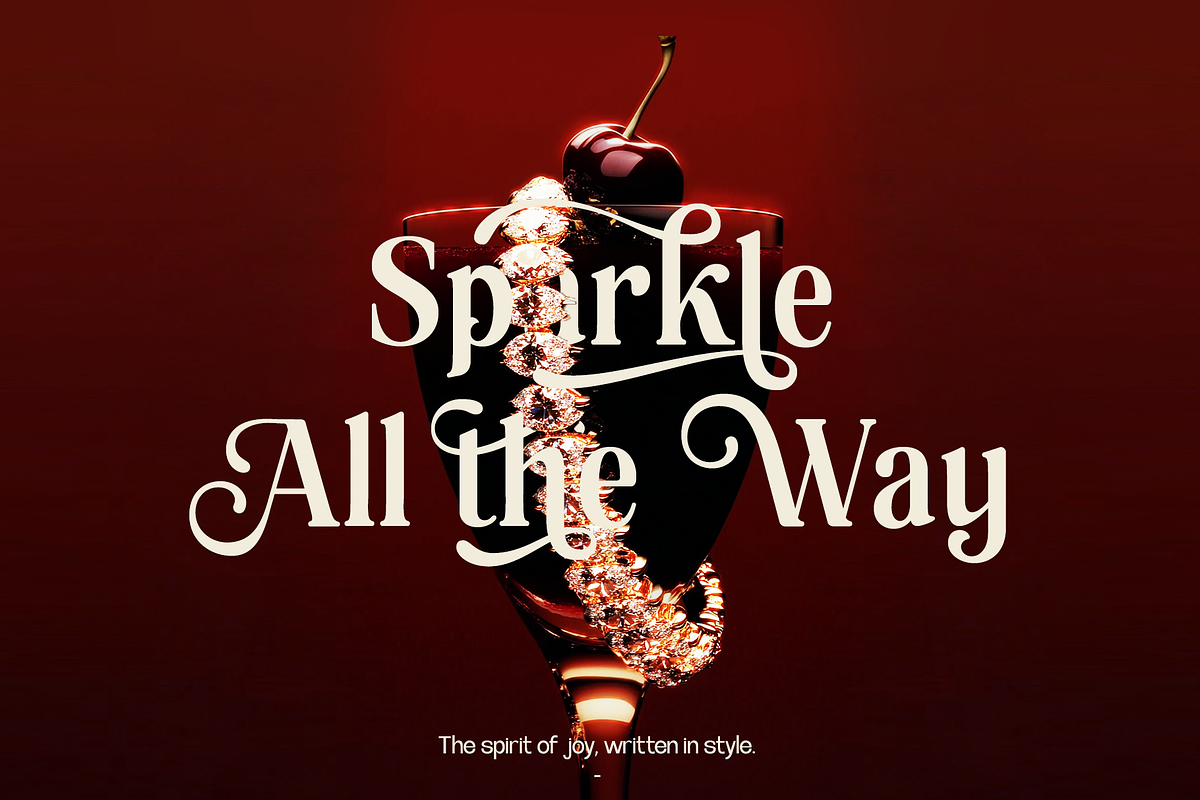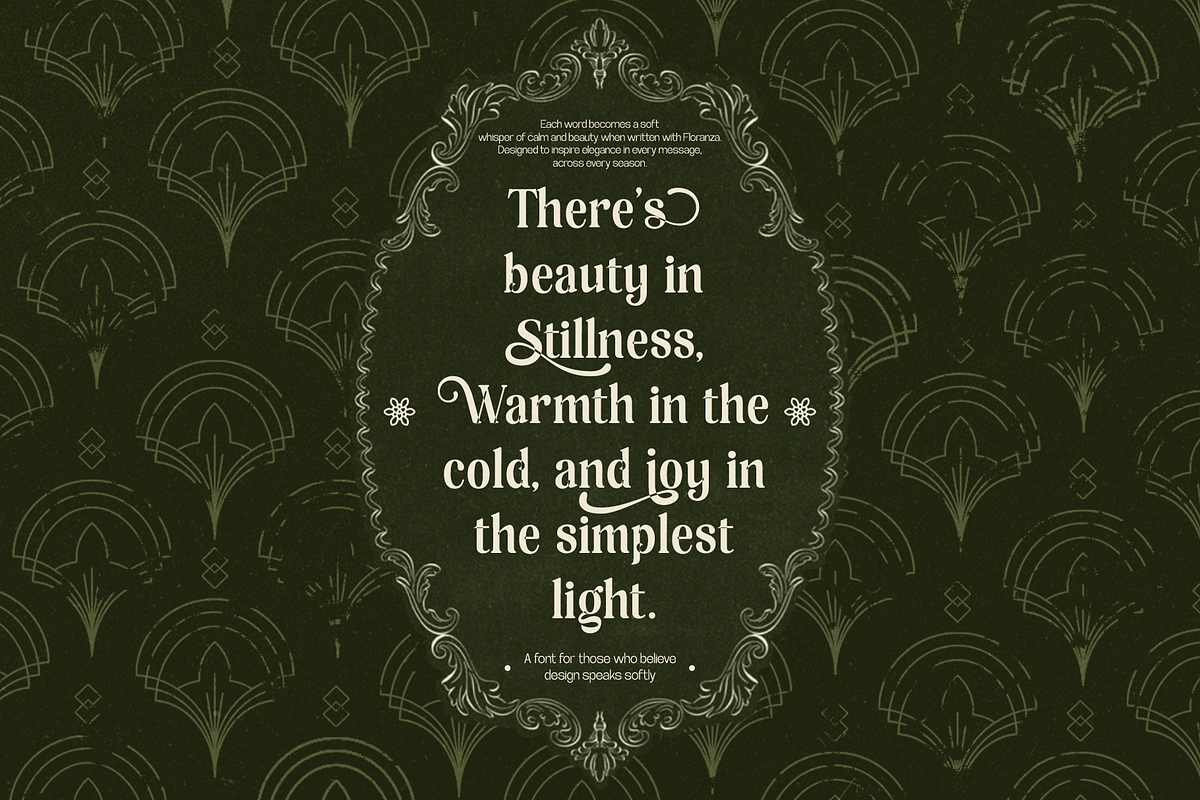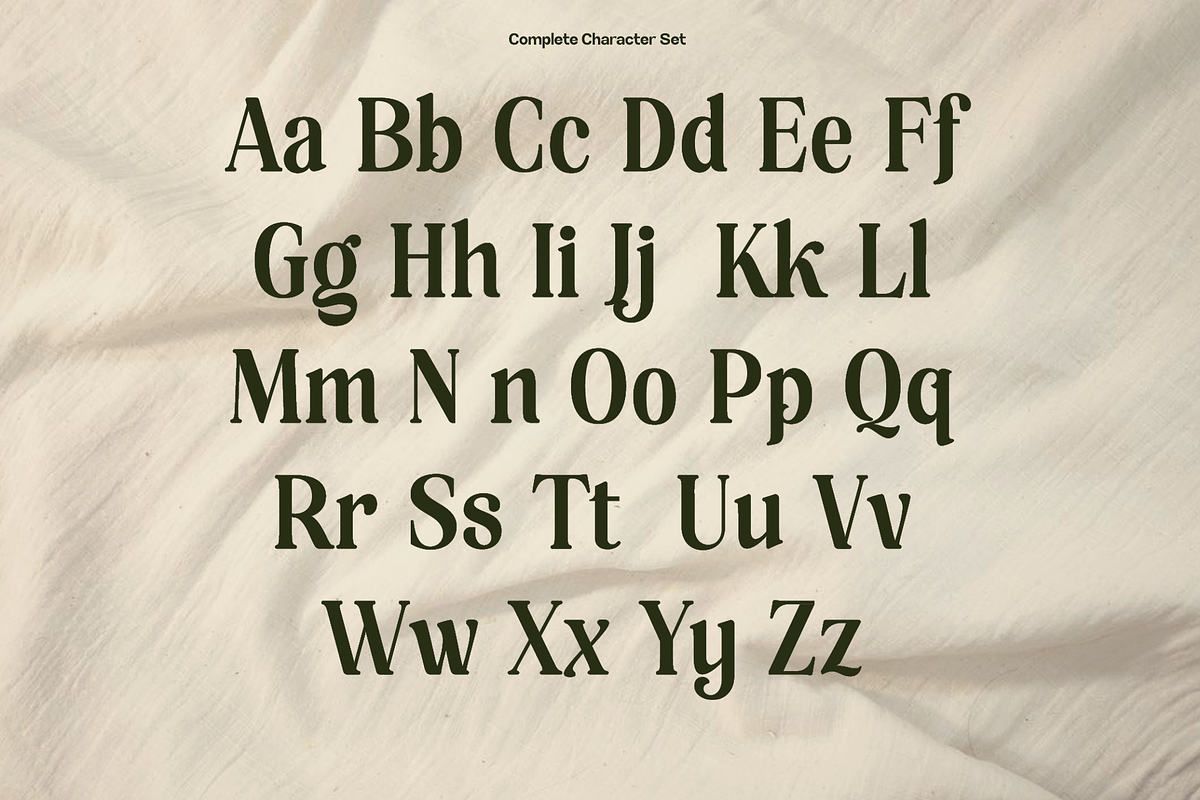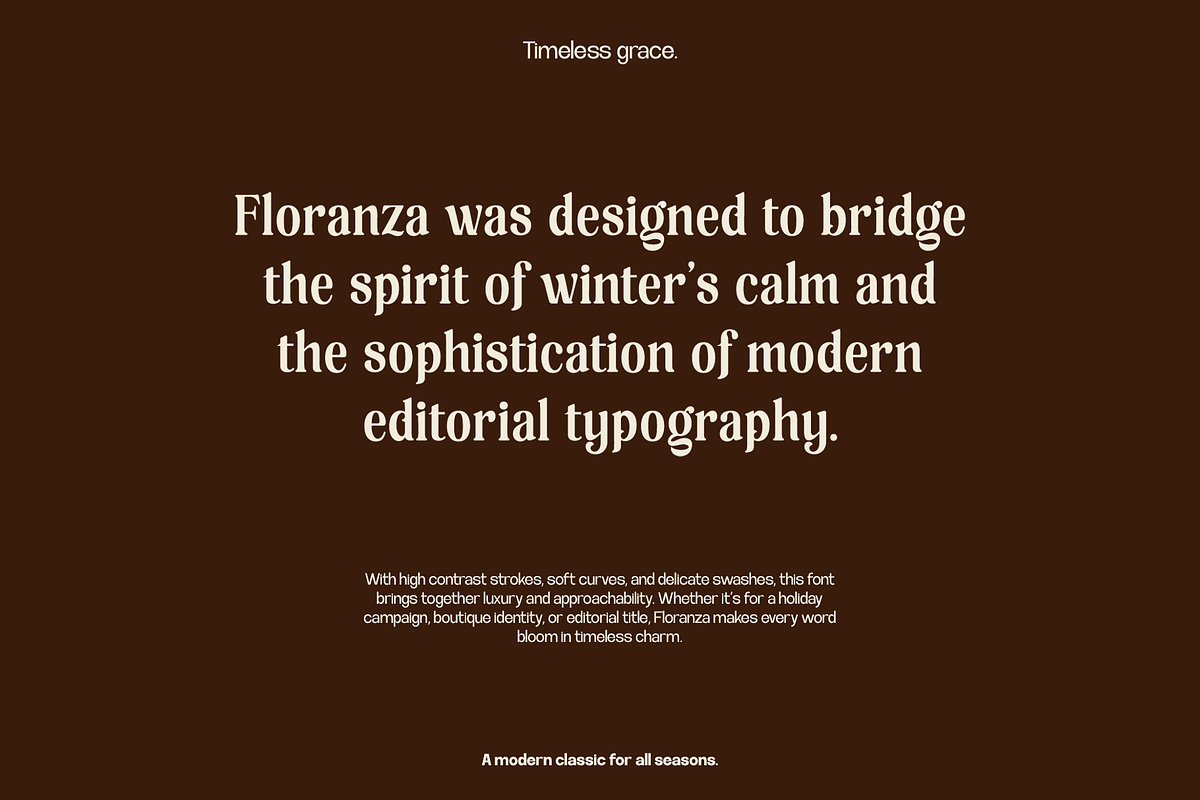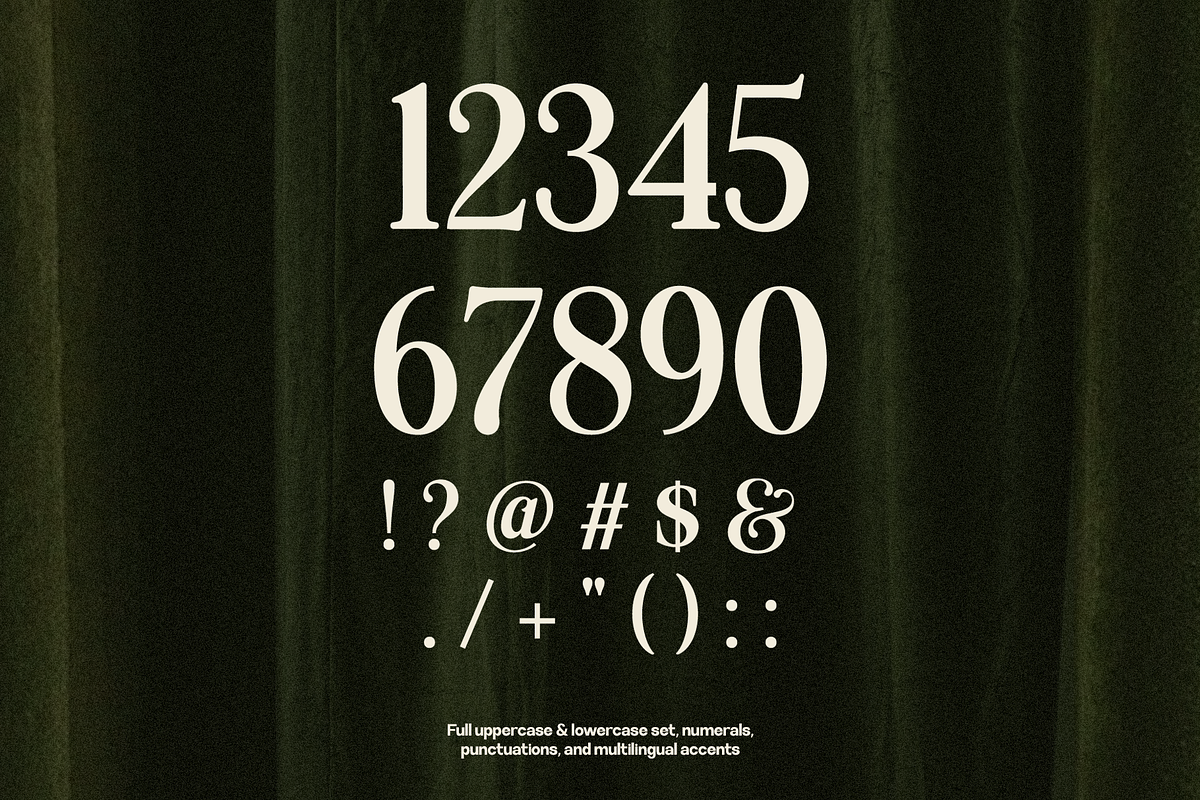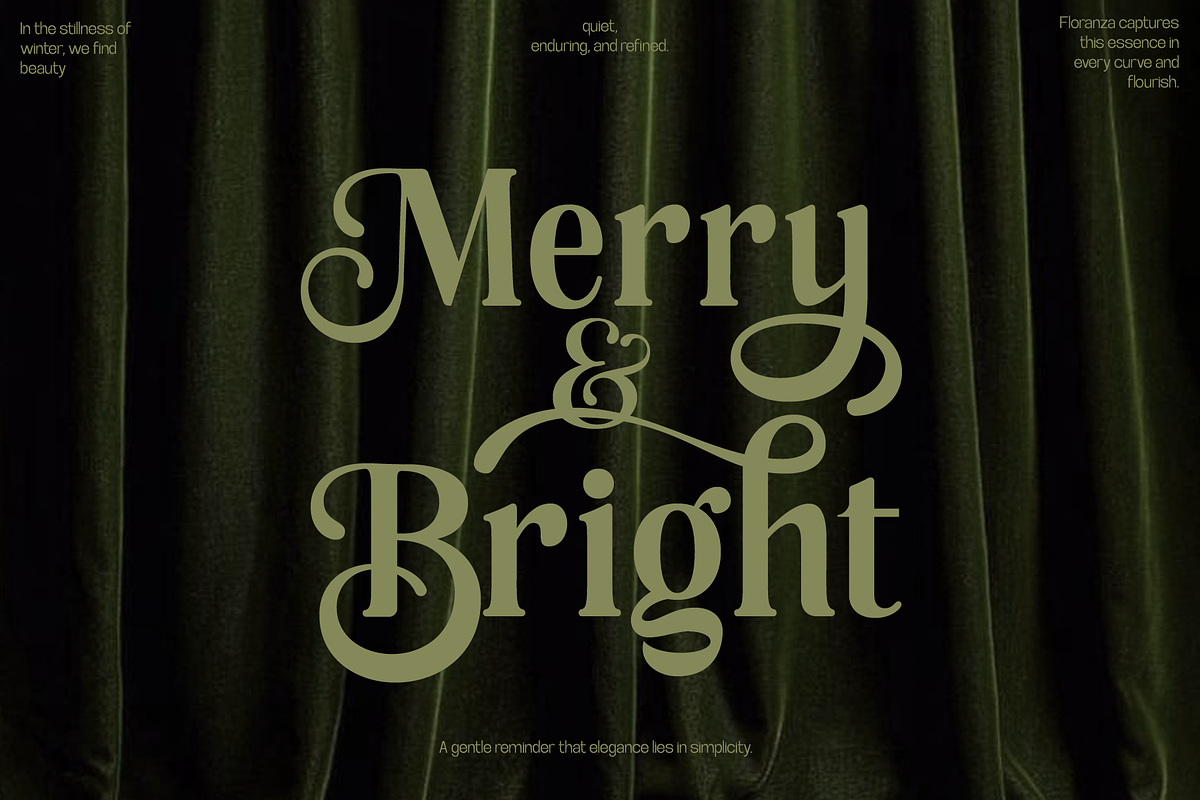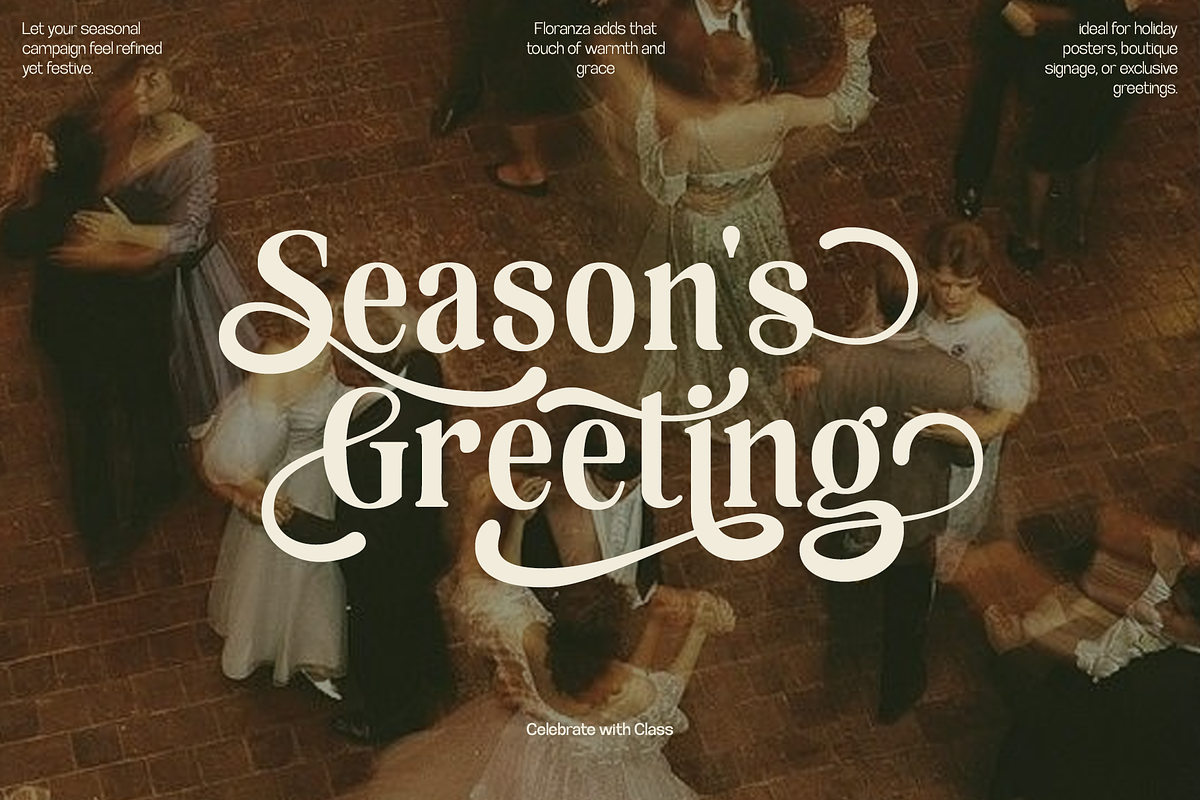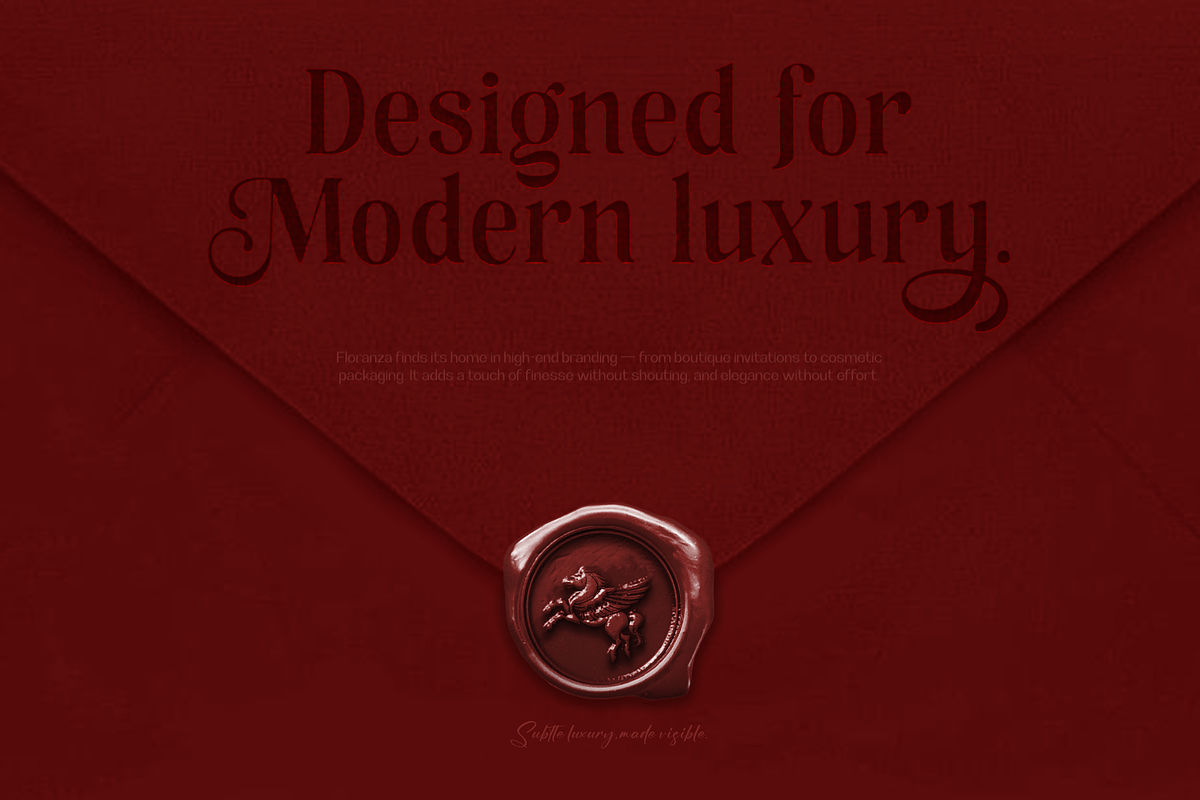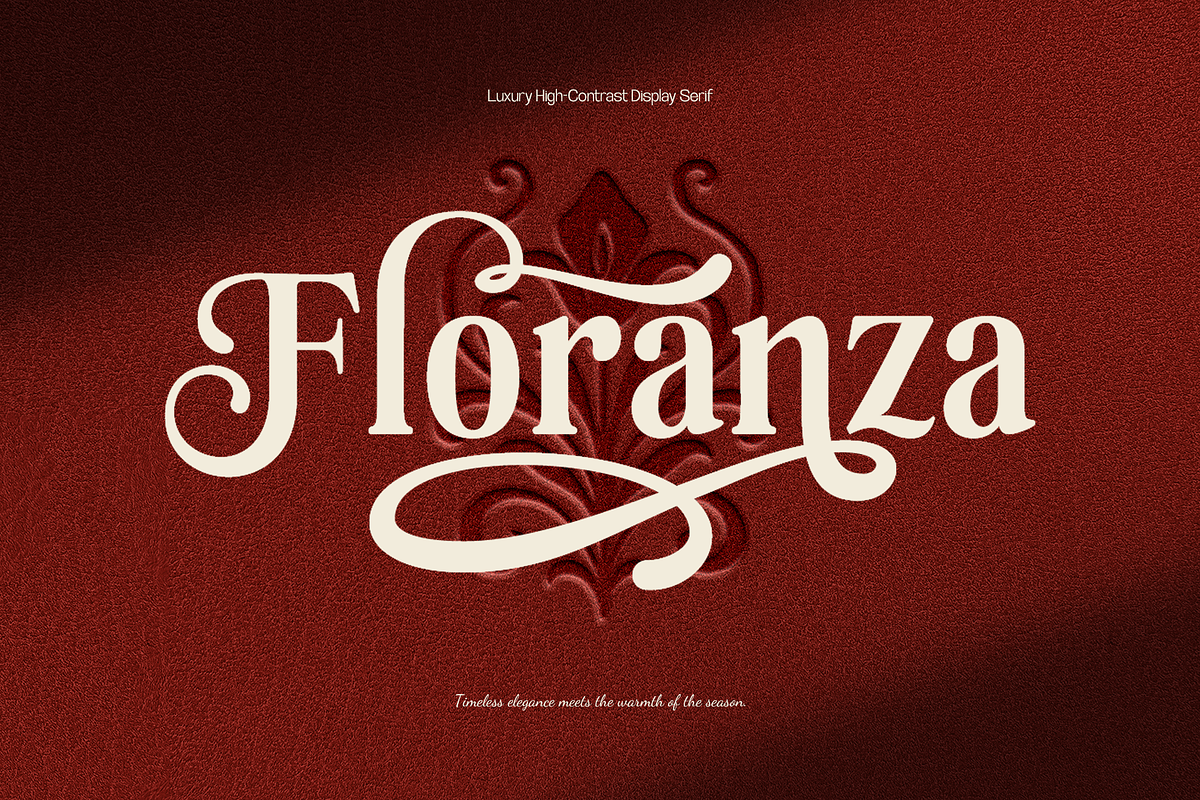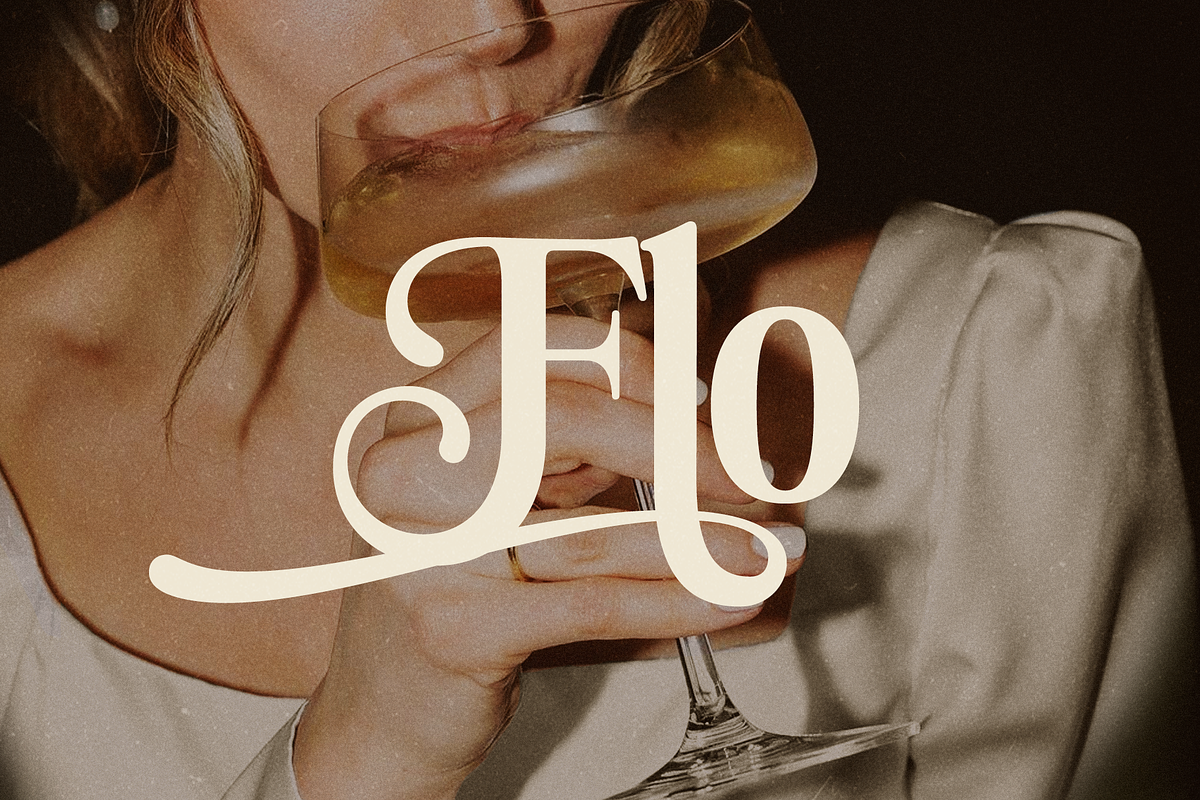
Floranza - Luxury Christmas Display
Floranza - Luxury Display Serif
Floranza is a luxury high-contrast serif font designed to bring timeless elegance and winter charm into editorial design. With expressive swashes and soft curves, it’s perfect for boutique branding, holiday campaigns, and sophisticated typography lovers who seek warmth and grace in every word.
- High-contrast stroke design
- Elegant swashes and ligatures
- Full uppercase & lowercase set
- Multilingual accents support
- Holiday-ready aesthetic
- Timeless, editorial vibe
- Holiday & seasonal campaigns
- Boutique & luxury brand logos
- Magazine & editorial titles
- Packaging for fashion & beauty
- Posters with poetic quotes
- Wedding & event stationery
- Social graphics with elegance